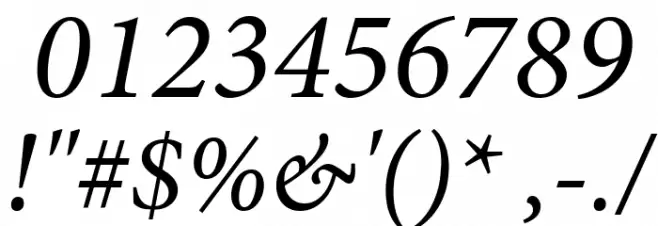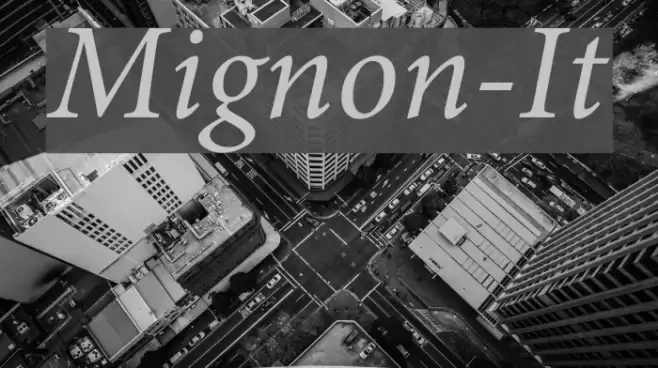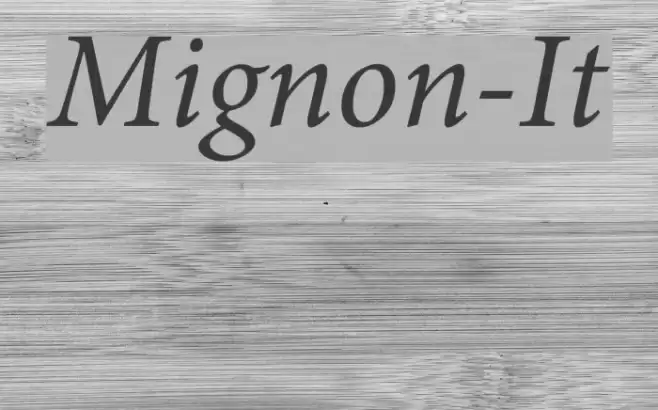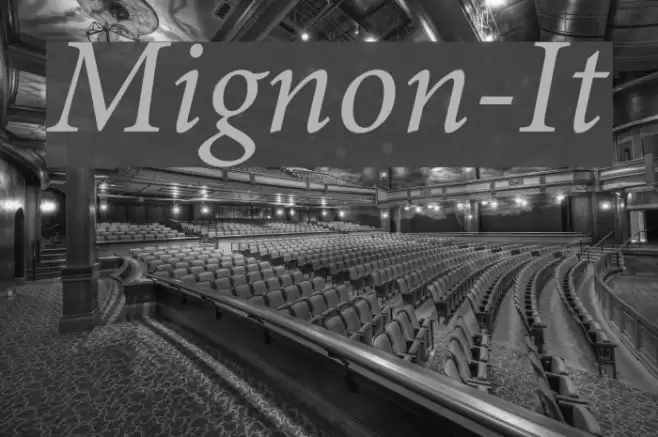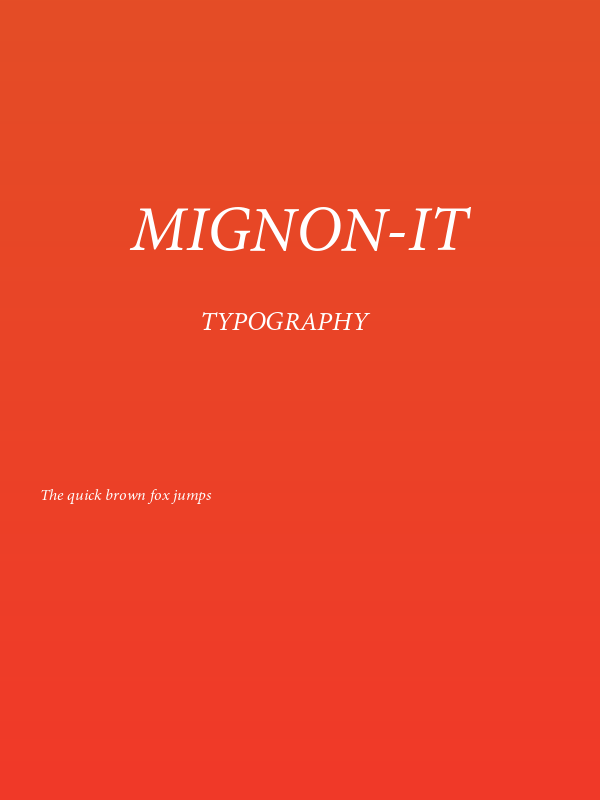
Mignon-It Font
Mignon-It Description
This font features a classic serif style with a distinct italic slant, giving it an elegant and sophisticated appearance. The characters are well-defined with smooth curves and sharp serifs, providing a refined and traditional look. The uppercase letters are tall and commanding, while the lowercase letters maintain a consistent flow with slightly exaggerated tails and ascenders. The numerals are clear and balanced, matching the overall aesthetic of the font. Special characters are designed with the same attention to detail, ensuring consistency across all glyphs. This font is ideal for projects that require a touch of elegance and formality.